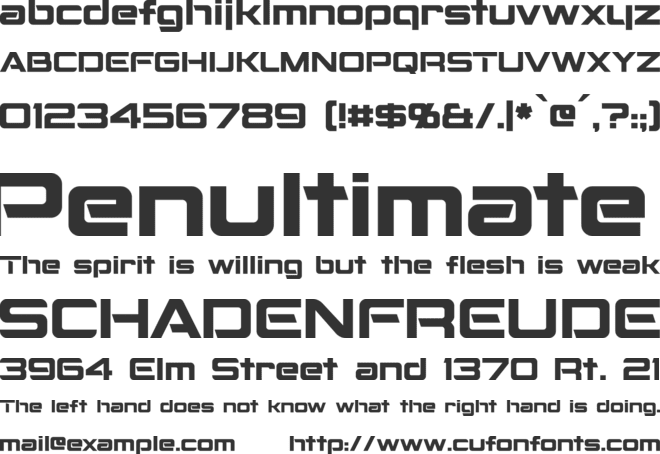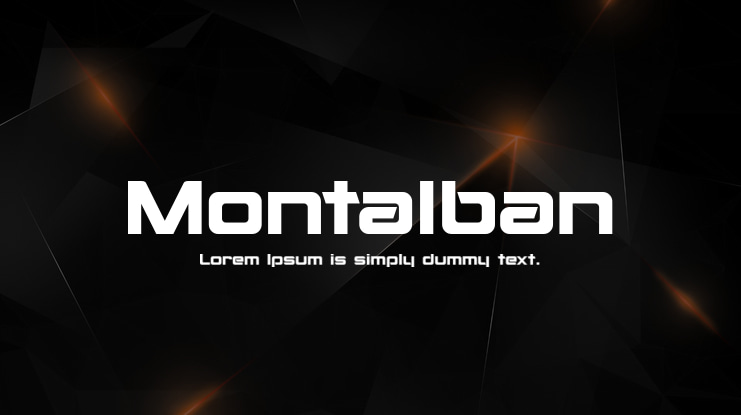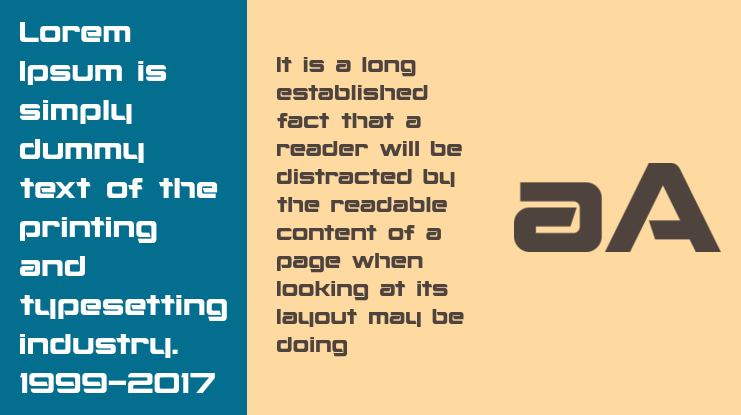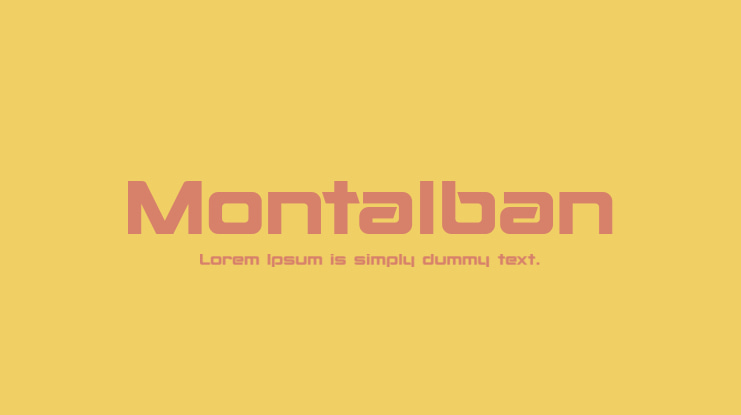
Montalban Font Family
Neale Davidson
MMontalban is a bold display face based heavily on the title and end-credits from the legendary Star Trek II: The Wrath of Khan movie. Includes full alphabet, extended punctuation, euro. Includes bold, italic, and bold-italic, and condensed versions of all of the above.